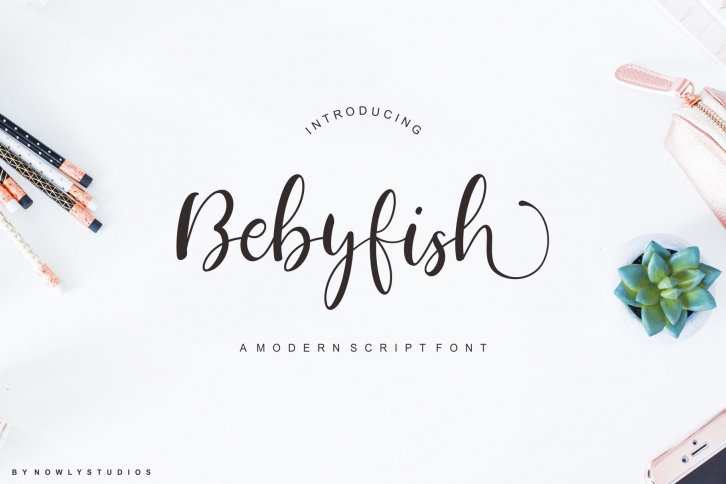
Babyfish Script is a great font that was designed by Nowly Studios. Imagine the amount of combinations you can create using this font! The archive is 3.24 MB and it was released on January 27, 2020. Babyfish Script looks beautiful on wedding invitations, greeting cards, logos, posters, labels, t-shirt designs, logos, business cards and is perfect for use in ink or watercolor works, fashion, magazines, packaging and food menus, children's books and more!